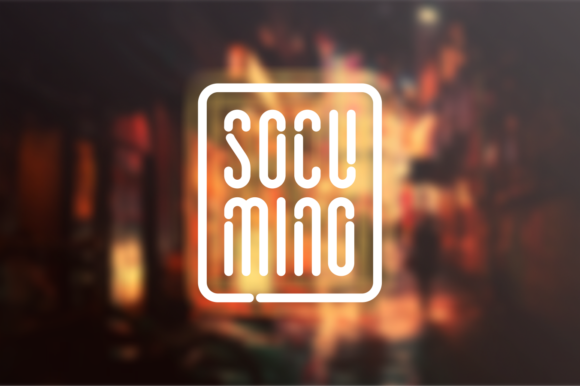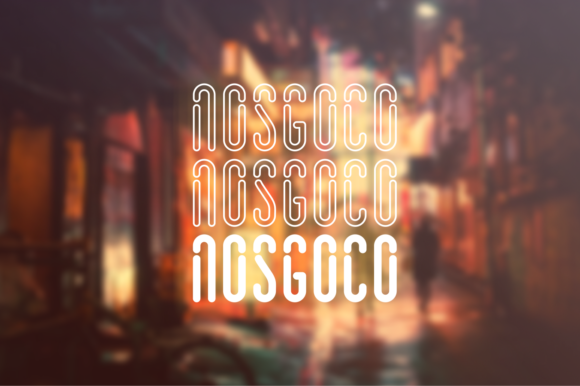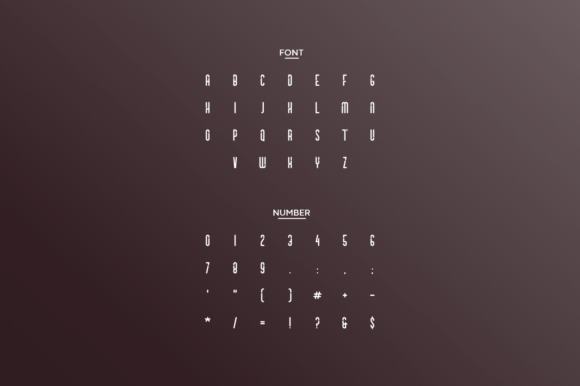
Introduction to Nosgoco Font
Have you ever found yourself stuck in a creative rut, searching for that perfect font to elevate your design project? I know I have. One day, while browsing through a design resource website, I stumbled upon the Nosgoco Font – and my search was over. This cool and modern display font is a game-changer for any creative project that requires a touch of futurism.
With its sleek and futuristic aesthetic, the Nosgoco Font is perfect for tech-related designs, futuristic concepts, and anything that requires a high-quality, modern look. What’s more, it’s available for free download, making it an invaluable addition to any designer’s toolkit.
Whether you’re working on a high-profile project or just a personal creative endeavor, the Nosgoco Font is a valuable asset that’s sure to impress. Its transparent background and crisp lines make it a versatile design element that can be used in a variety of contexts, from logos to web graphics and beyond.
Key Features of Nosgoco Font
- Characteristics include clean lines, elegant curves, and modern feel
Honest Review: Nosgoco Font
I recently stumbled upon the Nosgoco Font while searching for a design resource for a creative project, and I must say it’s a hidden gem. This free download is a high-quality addition to any designer’s toolkit.
Here are some things that work well: ✨
- Wide range of customization options
- Compatible with various design software
- High-resolution images
- Not all fonts in the set are available in bold weight
- Some characters may not display correctly in certain fonts
Overall, I’m impressed with the Nosgoco Font’s quality and versatility. It’s a great choice for designers looking for a reliable free download. While it’s not perfect, the benefits far outweigh the limitations. If you’re working on a creative project, I highly recommend giving it a try.
Nosgoco Font
Tips for Getting the Most Out of Nosgoco Font
To get the most out of the Nosgoco Font, experiment with different font sizes, colors, and combinations. You can also use it in conjunction with other design elements, such as images and graphics, to create unique and eye-catching designs.
Common Use Cases for Nosgoco Font
The Nosgoco Font is ideal for a wide range of creative projects, including social media graphics, presentations, documents, and more. Its high-quality design and transparent background make it a versatile and valuable design resource.
Great Vibes is similar to Nosgoco Font in its playful and dynamic feel, but it has a more casual and laid-back look. While Nosgoco Font is better suited for formal designs, Great Vibes is perfect for designs where you want to convey a sense of fun and spontaneity.
Can I customize the Nosgoco Font to suit my design needs?